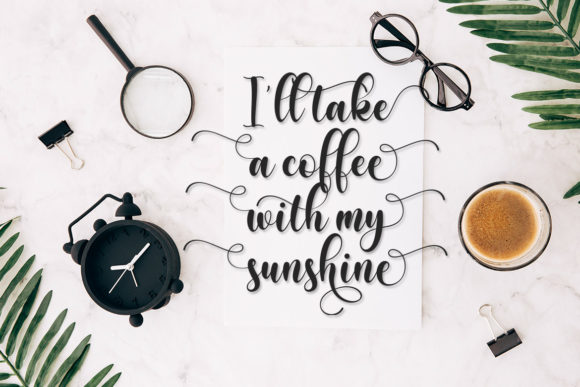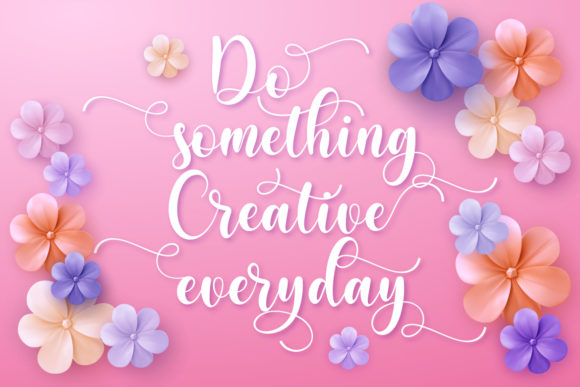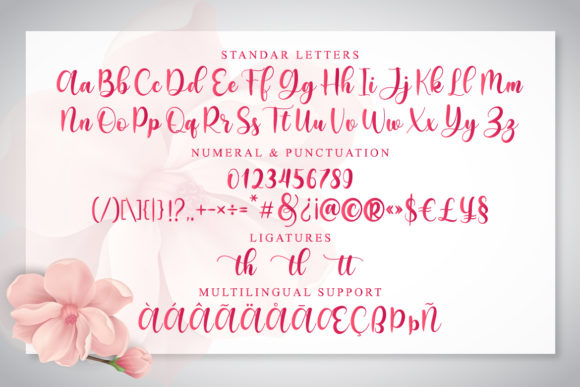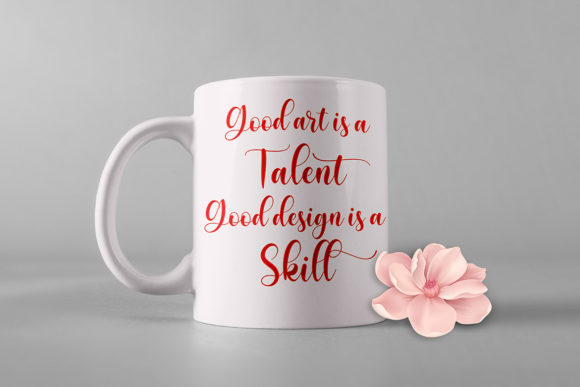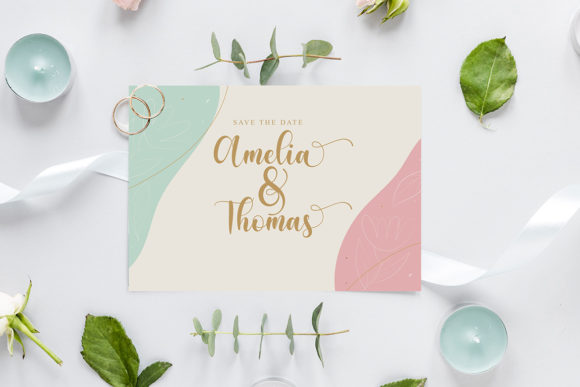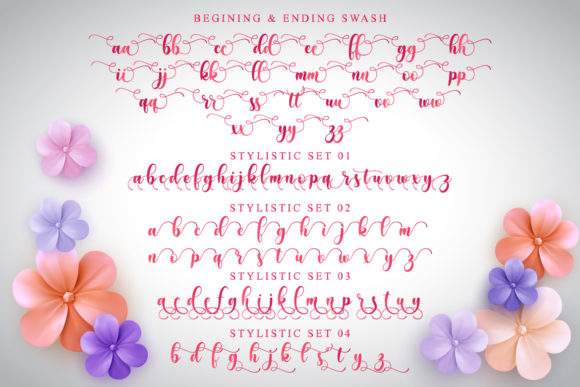
Dorothy Font: The Ultimate Handwritten Script for Creative Projects
Are you tired of using the same old fonts for your creative projects? Look no further than the Dorothy font, a cute and casual handwritten script that’s sure to add a touch of friendliness to any design. With its gorgeous swashes and ligatures, Dorothy is the perfect choice for designers and crafters looking to add a personal touch to their work.
What is Dorothy Font?
Dorothy is a beautiful handwritten font that’s designed to evoke a sense of warmth and approachability. Its casual, laid-back vibe makes it perfect for a wide range of creative projects, from social media graphics and Instagram posts to DIY crafts and calligraphy scripts. Whether you’re a professional designer or a crafty hobbyist, Dorothy is sure to become your go-to font for all your creative endeavors.
Key Features of Dorothy Font
So what sets Dorothy apart from other fonts? Here are just a few of its key features:
- Cute and casual design: Dorothy’s handwritten script is designed to be friendly and approachable, making it perfect for projects that require a personal touch.
- Gorgeous swashes: Add a touch of elegance to your designs with Dorothy’s beautiful swashes, which can be used to create stunning headings and titles.
- Ligatures: Dorothy features a range of ligatures that allow you to create unique and beautiful connections between letters.
- Versatile: Whether you’re designing for print or digital, Dorothy is the perfect choice for a wide range of creative projects.
Uses for Dorothy Font
So what can you use Dorothy for? The possibilities are endless! Here are just a few ideas to get you started:
- Instagram graphics: Add a personal touch to your Instagram posts with Dorothy’s cute and casual script.
- DIY projects: Use Dorothy to create beautiful calligraphy scripts for your DIY projects, from handmade cards to home decor.
- Branding: Use Dorothy to create a unique and memorable brand identity for your business or product.
- Stationery: Create beautiful stationery, from invitations to thank-you cards, with Dorothy’s elegant script.
Tips for Using Dorothy Font
Here are a few tips for getting the most out of Dorothy:
- Experiment with swashes: Don’t be afraid to try out different swashes and ligatures to create unique and interesting effects.
- Mix and match: Combine Dorothy with other fonts to create a unique and eye-catching design.
- Pay attention to spacing: Make sure to adjust the spacing between letters to create a clean and elegant look.
If you’re looking for a font that’s cute, casual, and incredibly versatile, look no further than Dorothy. With its gorgeous swashes and ligatures, Dorothy is the perfect choice for designers and crafters looking to add a personal touch to their work. Whether you’re creating Instagram graphics, DIY projects, or branding materials, Dorothy is sure to turn your creative ideas into true pieces of art.